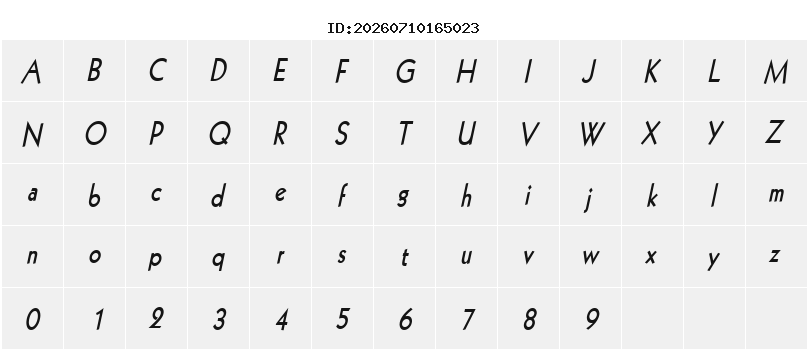
Geo 112-Condensed Preview
About Geo 112-Condensed.ttf
Geo 112-Condensed.ttf is a modern, elegant sans-serif font designed for ultimate readability and visual harmony. Perfect for branding, headlines, web design, and print materials.